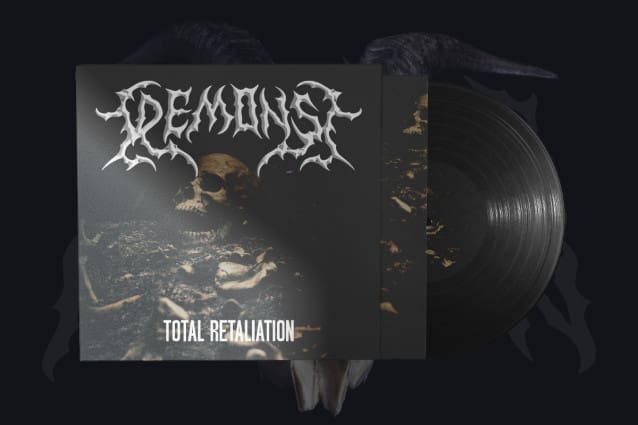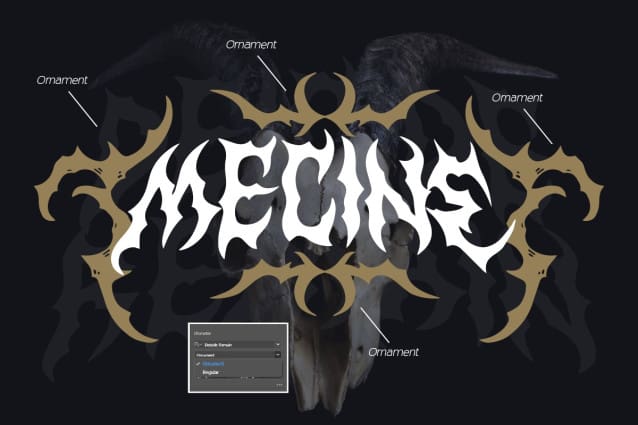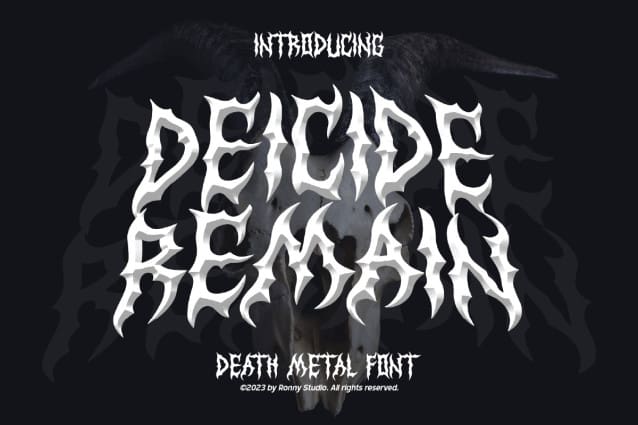
Deicide Remain Font
Deicide Remain Font is a cool alternative for you to easily create your Underground band logo or whatever. Using alternative fonts and ornaments will liven up the font and will look cooler and fiercer. It comes with a basic character set and a small group of symbols and signs frequently used in the extreme music sector – Death- and Blackmetal classics such as pentagram drops, roots, wings and more.